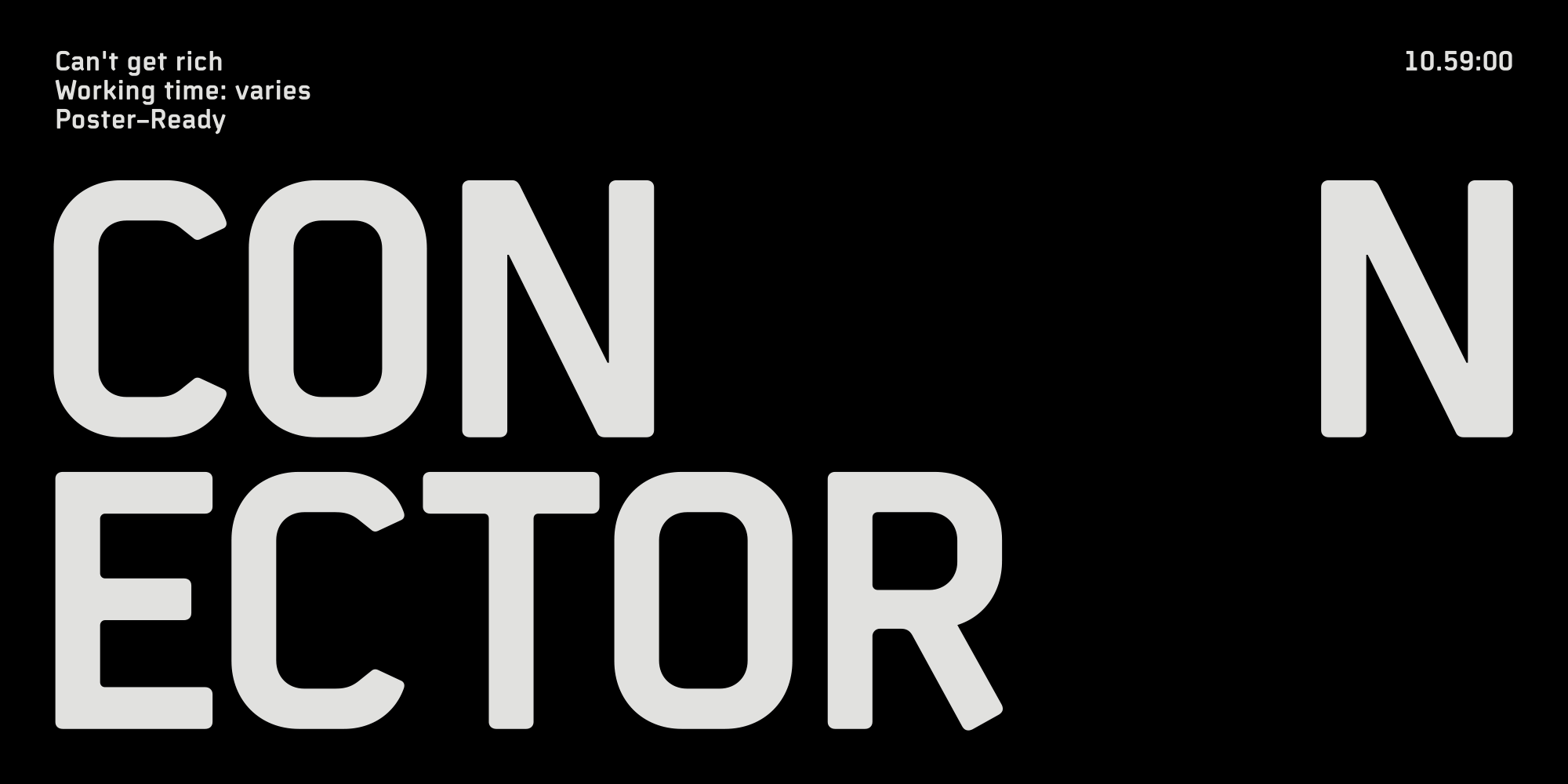
Connector Font is a versatile and modern sans-serif typeface, designed with a focus on clarity, efficiency, and a clean, interconnected aesthetic. Its balanced proportions and contemporary appeal make it an ideal choice for sleek corporate identities, interactive website designs, user-friendly mobile applications, impactful infographics, professional reports, and technical documentation. This font excels in environments where readability, logical flow, and a streamlined visual language are paramount. It's particularly effective for conveying a sense of order, precision, and forward-thinking design, ensuring your message is not only visually appealing but also effortlessly digestible across all platforms.
What makes Connector Font truly exciting is its ability to create a sense of cohesion and seamless integration within any design. It often features subtle design elements that hint at connectivity, such as clean angles or balanced spacing, which contribute to its highly organized and efficient look. This font doesn't just display text; it guides the reader's eye, making complex information easier to navigate and understand. It has a powerful ability to feel both incredibly modern and surprisingly versatile, making it an ideal tool for designers who want their work to convey clarity, structure, and a sophisticated, contemporary edge. Connector Font empowers brands and creatives to project an image of reliability and innovative design.
The Connector Font family is typically comprehensive, offering a wide array of weights and styles to ensure maximum versatility for diverse design projects. You'll often find it includes a full spectrum from light or thin to regular, medium, semi-bold, and bold, sometimes extending to ultra-bold or black weights. Corresponding italic styles are also commonly available, providing robust options for typographic hierarchy and emphasis. This extensive family ensures that Connector Font Free Download can adapt seamlessly to any design challenge, from subtle body text to commanding headlines, all while maintaining a consistent and harmonious visual language. Its broad character set usually covers a wide range of Latin characters, numbers, and extensive punctuation, making it suitable for international projects and complex textual layouts.